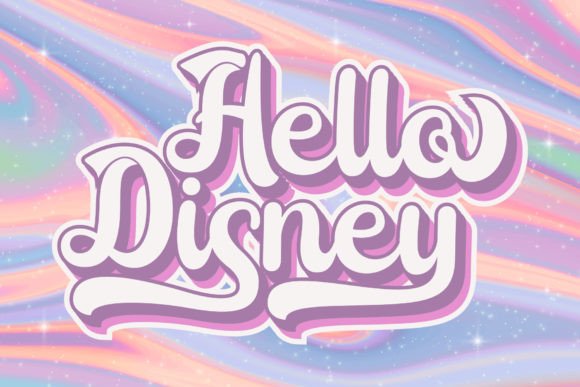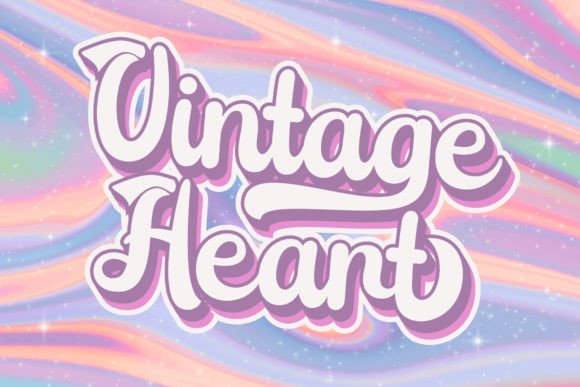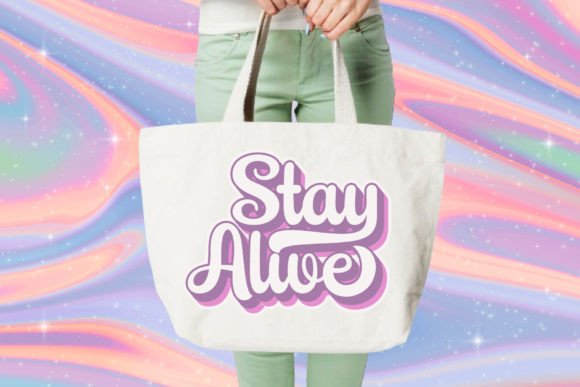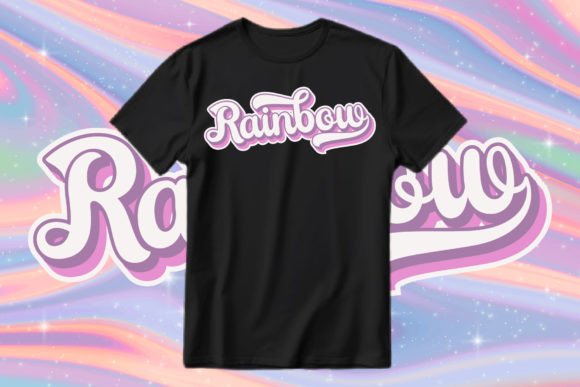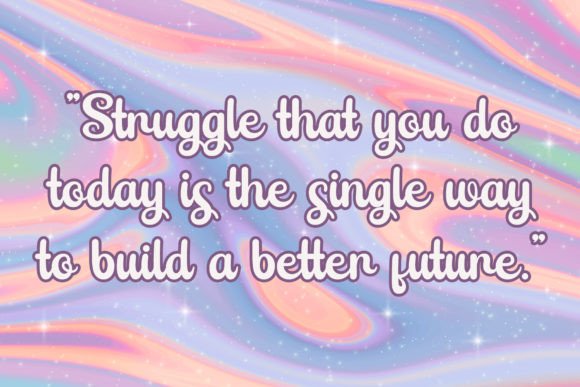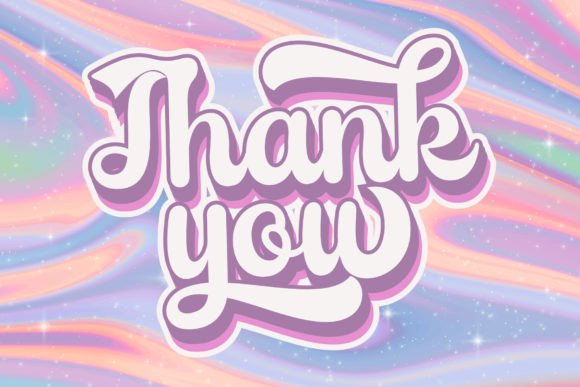
The Groovy Touch: Unlocking Your Creativity with Baby Groovy Font
Have you ever stared at a blank page, searching for that one spark to ignite your creative project? It’s a moment we’ve all experienced, and it’s exactly what makes discovering the perfect font so exhilarating. For designers, the right typography can make all the difference between a good design and a great one.
Enter Baby Groovy Font, a cool, vintage-style handwritten display font that adds a special retro touch to any design idea. Whether you’re working on a logo, branding, invitation, or social media post, Baby Groovy Font is the perfect companion to bring your vision to life. With its PUA encoded glyphs, accessing all the font’s features is a breeze, making it a valuable addition to any designer’s toolkit.
Baby Groovy Font Key Features
- Font Family: A fun, cursive script font designed to evoke a playful and nostalgic feel.
- Unique Characteristics: The font features a unique blend of rounded and pointed letterforms, with subtle flair and swing, giving it a distinctive and eye-catching appearance.
Baby Groovy Font Review
Overall, I think the Baby Groovy Font is a unique and playful addition to any design project. Here are some of its standout features: ✨
- Fun and whimsical feel: The font’s rounded shapes and bubbly lines evoke a carefree, nostalgic vibe that’s perfect for projects like children’s books, party invitations, or social media graphics.
- High level of customization: The font comes with a range of styles and options, from bold to italic, which makes it easy to tailor the look to your specific design needs.
- Works well with bold colors: The font’s playful feel is amplified when paired with bright, bold colors, making it a great choice for projects that need a lot of visual punch.
However, there are a few limitations to keep in mind: ⚠️
- May not be suitable for formal projects: The font’s playful, childlike feel may not be the best choice for more formal or professional projects, where a more subdued or serious tone is required.
- Can be hard to read at small sizes: While the font is perfect for larger text, it can be difficult to read at smaller sizes, which may limit its use in certain applications.
Overall, I think the Baby Groovy Font is a fun and creative option for designers looking to add some personality to their projects. While it may not be the best choice for every project, it’s a great addition to any design toolkit.
Use the Baby Groovy Font for:
1. Creating playful and fun designs for children’s products or services.
2. Adding a retro or vintage touch to your designs.
3. Creating eye-catching headlines and titles.
Alternatives to Baby Groovy Font
Great Vibes is a beautiful, handwritten font perfect for creating a fun and playful atmosphere. It’s ideal for use in advertising, social media, and entertainment-related projects. Great Vibes has a similar feel to Baby Groovy Font, but with more intricate details and a wider range of styles.
Comparison: While Baby Groovy Font has a more childlike and whimsical feel, Great Vibes is more sophisticated and elegant. Great Vibes is also more versatile, with a wider range of weights and styles available.
Alex Brush is a elegant, handwritten font that’s perfect for use in branding, packaging, and advertising. It has a high-end feel that’s ideal for luxury and premium brands. Alex Brush is similar to Baby Groovy Font in terms of its fluid, handwritten feel, but it’s more refined and sophisticated.
Comparison: While Baby Groovy Font is more playful and whimsical, Alex Brush is more polished and refined. Alex Brush is also more versatile, with a wider range of styles and weights available.